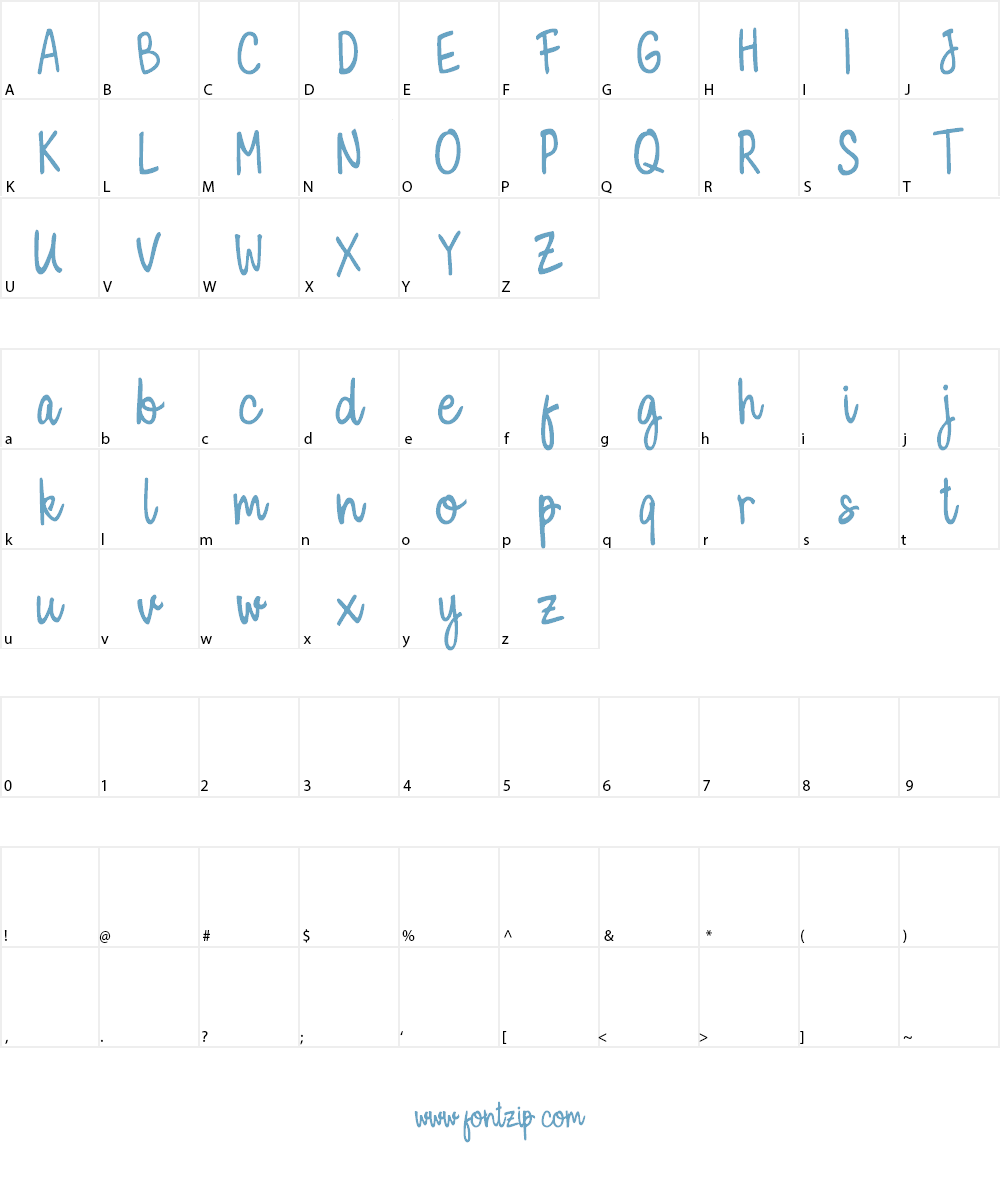
Milky Cookies is Handwritten Font. These font really suitable for logo of cafe, restaurants, food label and its prety cool suitable for book cover design or title of blog.